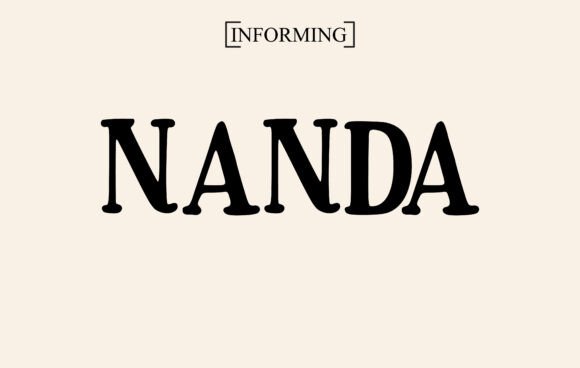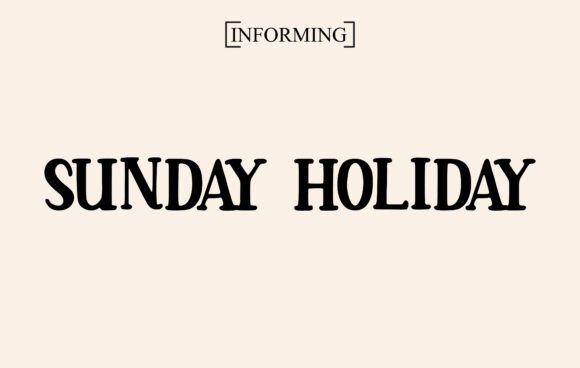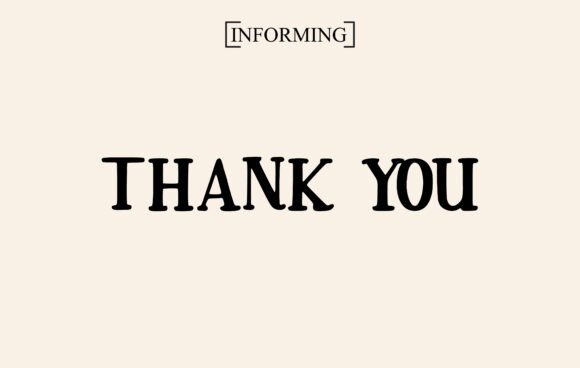
Nanda Font: A Timeless & Elegant Serif for Modern Branding
About the Nanda Font
Get ready to be inspired by Nanda Font, a fresh and dynamic typeface for modern creators. Nanda is designed to be a true favorite; this font has the potential to take your creative ideas to the highest level
Nanda’s strong, yet friendly personality makes it ideal for headlines, branding applications, and short-form content like posters or social media graphics. Its legibility shines in titles and short text blocks, but its weight might prove less suitable for lengthy body copy or UI elements where readability over extended periods is crucial.
Consider pairing Nanda with a clean sans-serif like Open Sans for a balanced contrast, or a more playful script font such as Pacifico for a touch of whimsy. For a sophisticated feel, a classic serif like Garamond could create a compelling juxtaposition of styles.
Nanda projects a modern, approachable boldness. It’s a versatile choice for brands seeking a confident yet friendly image, suitable for projects ranging from lifestyle products to technology startups.